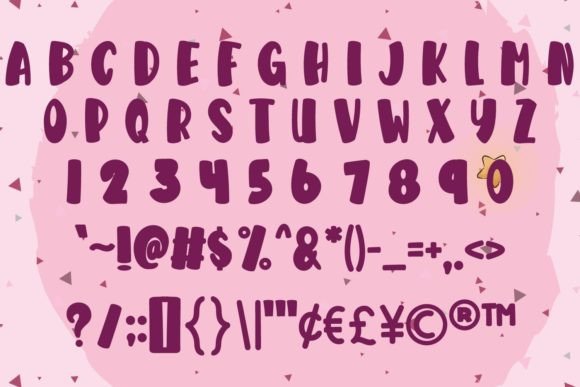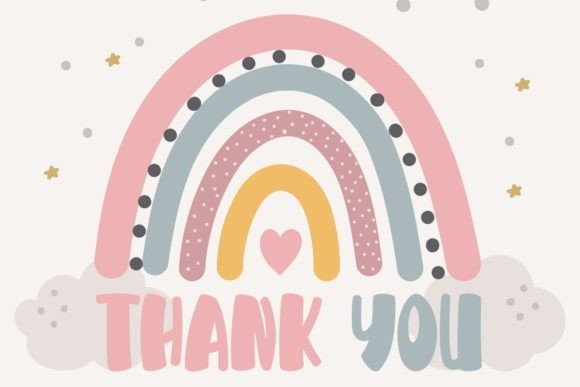
Introduction to Morning Glow Font Font
Fonts play a crucial role in design, and the Morning Glow Font font is a typeface that brings both character and versatility to any project. Whether you’re working on a branding project, a website, or a print design, the Morning Glow Font font offers a unique style that can elevate your work.
| 📌 Font Name | Morning Glow Font |
| 👤 Author | Planetz studio |
Morning Glow is a fun and cute display font.
Use it to create outstanding covers, banners, product packaging, quotes, storybooks, and so much more .
Key Features of Morning Glow Font Font
Why Choose Morning Glow Font Font?
The Morning Glow Font font is more than just a typeface – it’s a design tool that helps you communicate your message with style and clarity. Its unique character set and versatile design make it suitable for a wide range of applications, from elegant invitations to bold headlines.
With its carefully crafted letterforms and balanced proportions, the Morning Glow Font font ensures readability and visual appeal across all mediums.
What makes Morning Glow Font font special?
The Morning Glow Font font stands out with its unique design, exceptional readability, and versatility across various design applications.